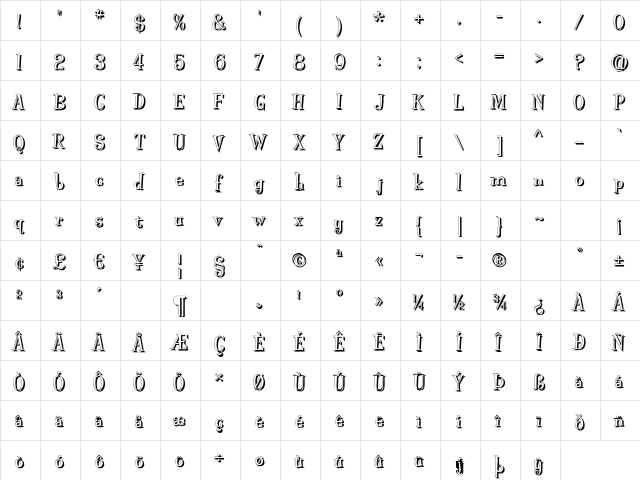
PinkMartiniBV Regular
Design Context for PinkMartiniBV Typeface
PinkMartiniBV is a composed and adaptable typeface that performs quietly and consistently across a wide range of design contexts.